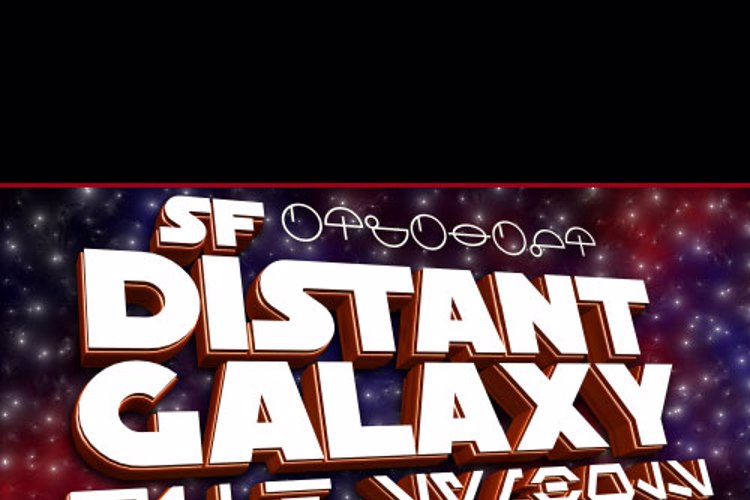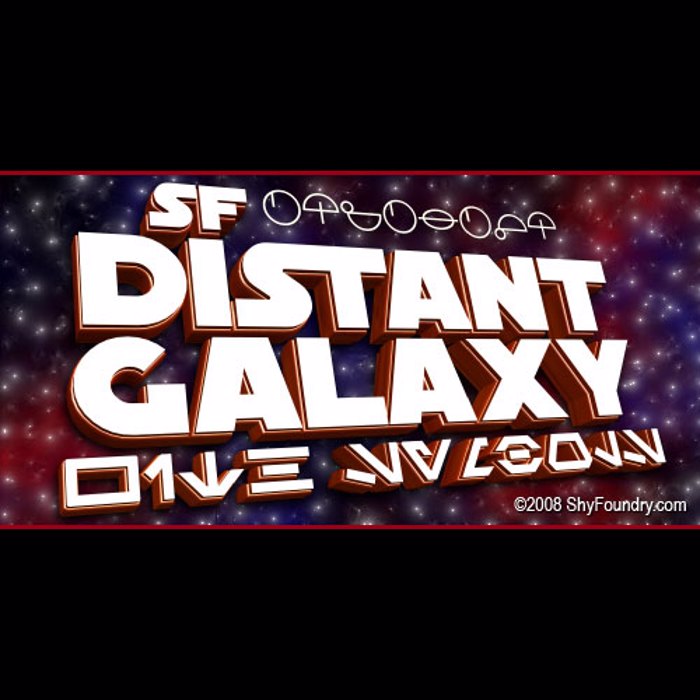
SF Distant Galaxy Font
About SF Distant Galaxy Font
More info from ShyFoundry
Inspired by a great adventure in another galaxy, SF Distant Galaxy contains lowercase and uppercase letters, numbers, punctuation, and accented characters. The complete font package includes the following ten fonts: